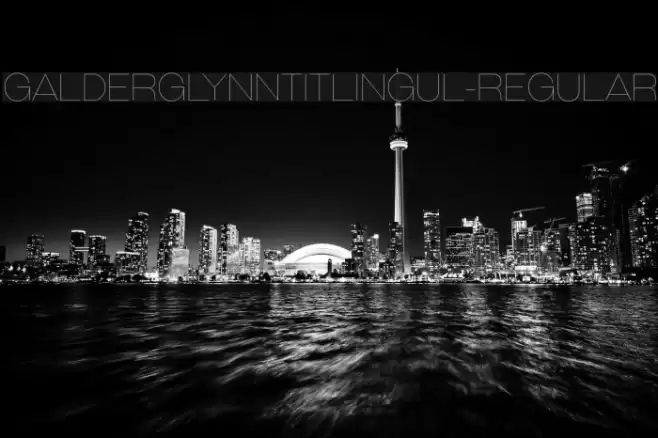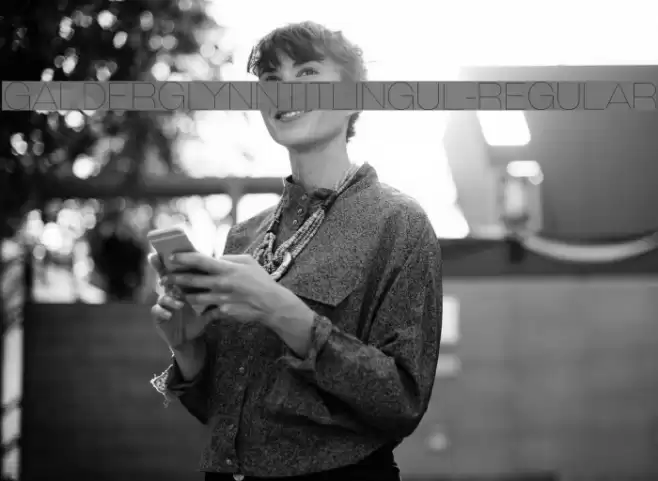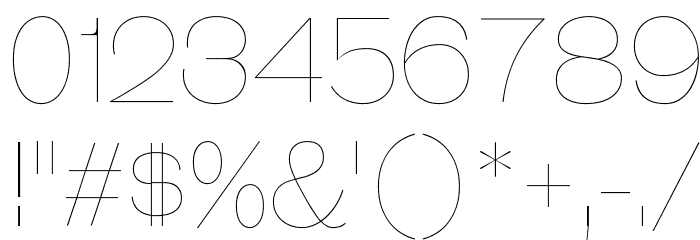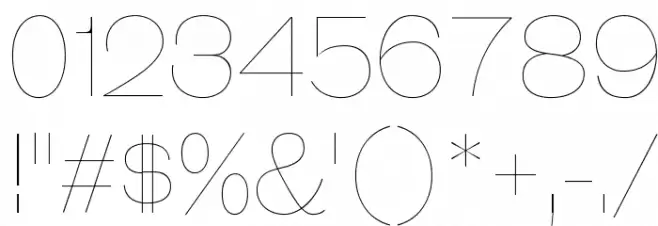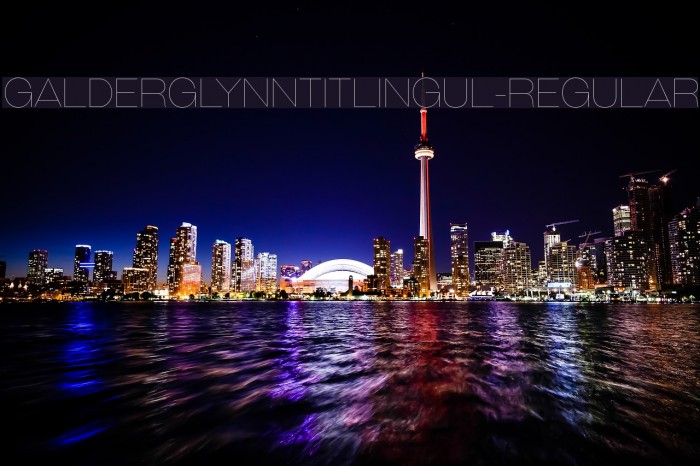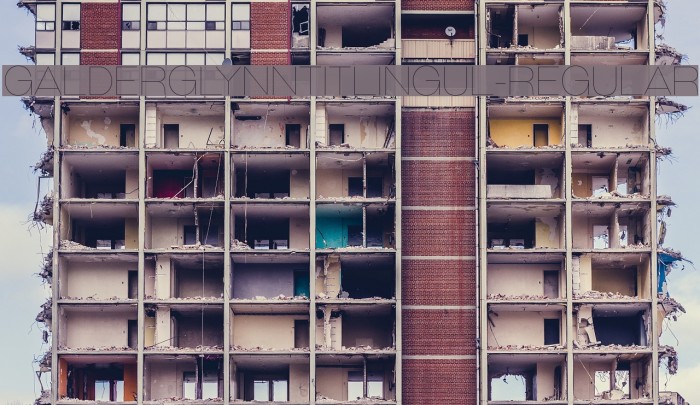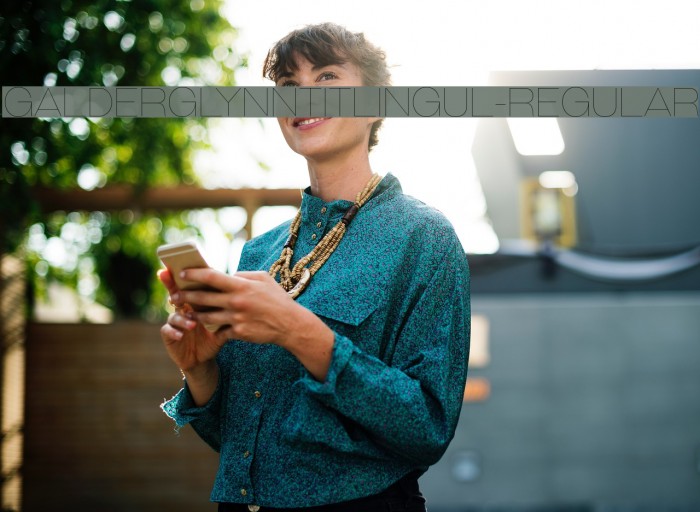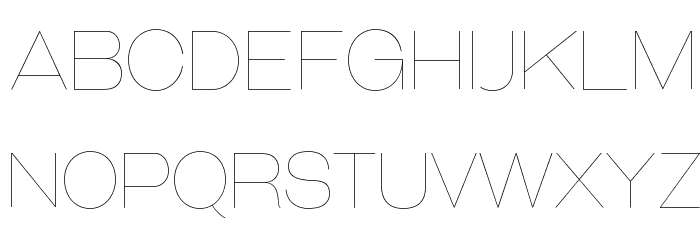
GalderglynnTitlingUl-Regular Font
GalderglynnTitlingUl-Regular Description
This font features a clean, ultra-lightweight design with a modern aesthetic. The characters are constructed with thin, consistent lines that give it a sleek and minimalistic appearance. The uppercase and lowercase letters maintain a uniform height, contributing to a harmonious and balanced look. The numerals and special characters follow the same design principles, ensuring a cohesive visual style throughout. Its geometric shapes and open counters enhance readability while maintaining an elegant and sophisticated feel. This font is ideal for projects that require a contemporary and refined touch.
A modern, ultra-lightweight font with sleek, geometric lines and a minimalistic style from Uncategorized fonts.
- Proposed Projects: Ideal for branding, editorial design, luxury product packaging, and minimalist web design.